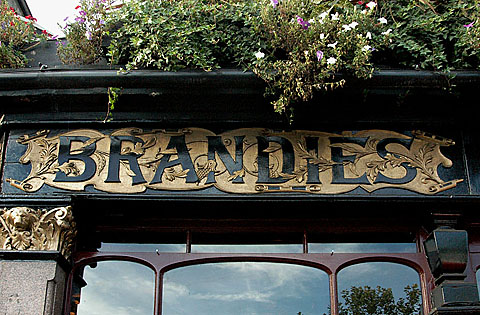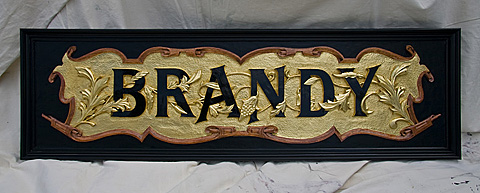
Antique repro
A few of you have seen this already and have been nudged by a couple to post a foto or 2 here. It's always good to share even when you have a shy side as I do.
This is an antique sign from London England at the Black Lion near Kennsington and the second is my imitation. There are several differences and principally the "IES" missing. I had a few extra 6' blanks at work and no 8 footers. The other is the colours. The ones I did are likely how it looked new in about 1890 to 1895. You can see another project from the same firm in Arnold Schwartzman's "Designage" book. It was just one of those things I had to do and made the time
Re: Antique repro
Both are equally beautiful! I agree with Mr. White.
Is it all carved from wood? What kind? By hand??
Re: Antique repro
A beautiful perfect copy of an English Sign.
Yours looks better actually!. I'm starting to think you did both of them.
I reckon you were working here in your last life as a sign carver round London.
Top work welldone mate.....
Yours looks better actually!. I'm starting to think you did both of them.
I reckon you were working here in your last life as a sign carver round London.
Top work welldone mate.....
Re: Antique repro
A very fine bit of work Mr. Bernhardt.
What did you use for the golden background and the copper color around the parchment? Was it actually gold leaf and copper leaf?
If leaf, what brand of gold size did you choose? Were any clear coatings applied?
What did you use for the golden background and the copper color around the parchment? Was it actually gold leaf and copper leaf?
If leaf, what brand of gold size did you choose? Were any clear coatings applied?
Re: Antique repro
Beautiful work Doug. It's allways nice to see the work of a master. Thanks for your posts.
Interested in Pat's questions answered as well. Also what kind of wood.
Re: Antique repro
Davey........I thought you knew how old I was so that guy must have been a competitor! My sign is Basswood or Linden 1 1/2 thick planks about 5"-6" edge glued. The backgnd is all punched as per the original with 23 K leaf. The outer edge of that is the natural wood finish (with stain to colour) showing through. The rest is One-Shot really really dark green with some flattening past to kill off the sheen.That was only semi-successful as never got quite the level of gloss I wanted. Will mess about with that again in the near future. Yes, it is all hand carved with the exception of using a router and various bits to bring the different levels out. I should add that there is an applied moulding rather than the clear glass front seen on the originals. When going through Mr.Schwartzman's book you can see one that says "Whiskies" which is on the same building as Brandies(I'm going to take that one on a bit later). Elsewhere listed in his Books glass section are the "90" and the front from Salisbury which is in St.Martins Lane near the British Museum. They are the only 2 fronts I have seen by this craftsman but you can see many many modern CNC versions which are quite poor on every level. The Salisbury is in excellent condition being behind glass whereas the Black Lion is not. Am sure over the years all the damage from the blitz etc has taken it's toll (broken the glass)and the present owners don't seem to be as disposed to restoration as some. When there (Black Lion) you can see many treats that are hidden away behind electric boxes and the like and I like the craftsmanship better at the Black Lion site. They have just SOOOO much from that era that it's often regarded as nothing special. A real treat is the glass piece at the Old Blue Last. It's in a somewhat run down area but it's about 5'or6'x12' of magnificent glass decoration from the period before 1890....and very valuable. I think it was this spot that built a wall in front of it during WW2 for safety and forgot all about it until relatively recently. During the 1890's there was a huge boom in pub refurbishing and it all went bust about 10years later.That's why there are so many fine example from that time although that is something of a miracle as well. During the 60's Watney's brewery which owned the Princess Louise wanted to demolish it to make way for their offices. The glass in there is the single most amazing site and is signed......in itself unusual. The only thing left of Watney's right now is a bad taste in everyone's mouth and the occasional bit of brewphemera. I'll have to dig up some more photos in the near future and sorry about the length of this post. It's the beginning of a long weekend here and while waiting for a frothy one (or 3) in the freezer found myself with more time than usual after work. Also I just like all yuz guys so much......and if you believe that I have some ocean front property in Nevada for sale!!
Re: Antique repro
Doug,
Always a pleasure to see what your up to. Next time try using Amorphous silicon dioxide to flatting your paint. It's what ever paint company uses to make their flattening pastes and flat paints. I called DeGussa and asked about samples. I ended up getting a life time supply. Acematt ok520 mating agent.
Re: Antique repro
Found a few more fotos. The ones from the Blue Last photographed done by Dave McDonald quite a few years ago and am sure he won't mind me posting them here. I've tried a couple of times since to get in there with all my photo gear but has been closed each time.
Re: Antique repro
Hi Eric. Me thinks these guys were paid a craftsmans wages which would have been dictated by their guilds. Hard to know from here what that might have been in relative terms. One could start snooping through old books and trades publications if you have the heart to try it. The repro I did was spread over a couple of months and whenever I had time. It goes without saying that I learned a ton of stuff while doing it and would do it much differently if given the chance.........which as mentioned I might try. If I was to settle down to doing it in one go it would have taken about 2 weeks from beginning to end. There's a few days of just watching paint dry....an exciting thing to watch!!